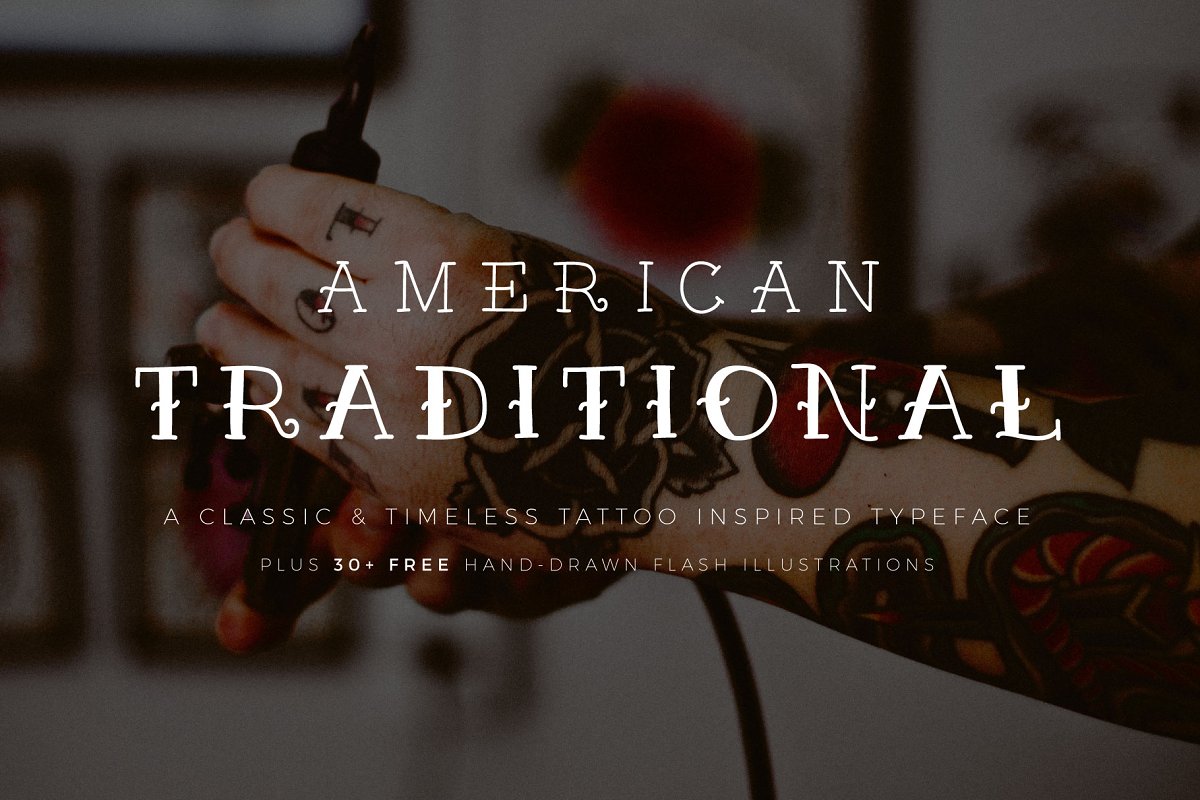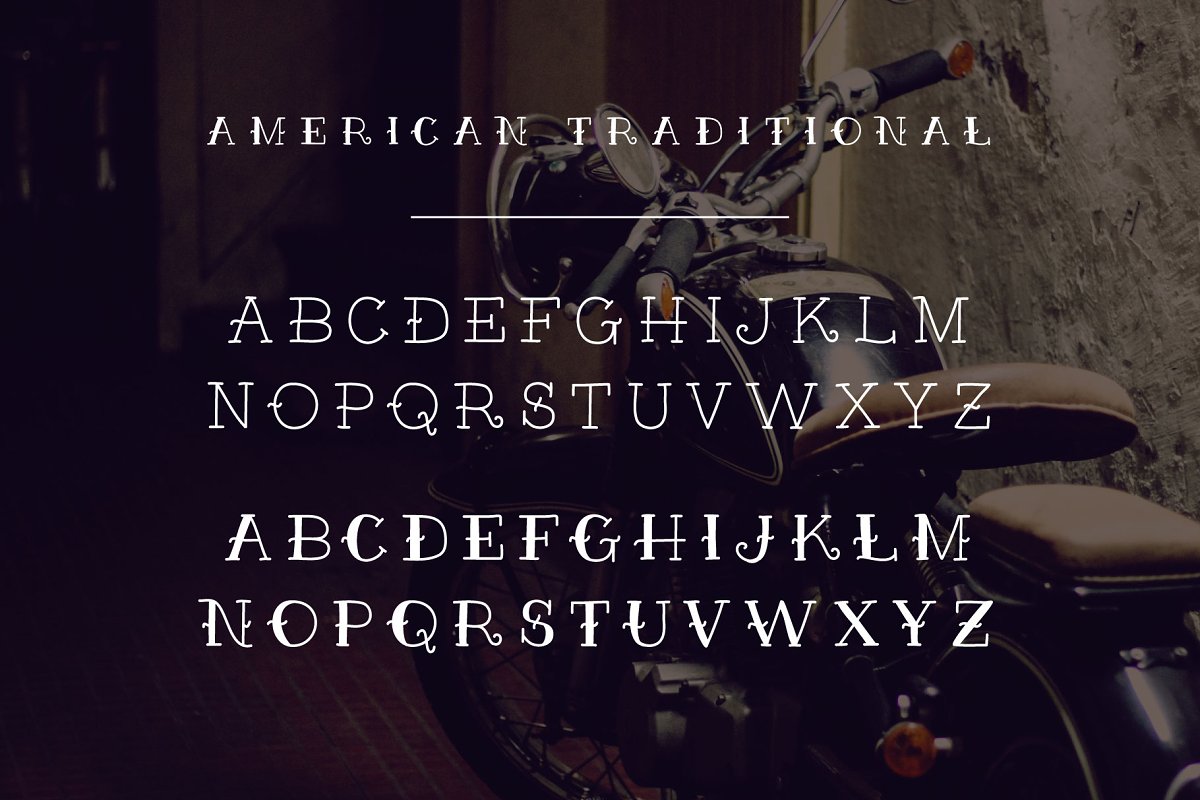
About the American Traditional Free Flash Font
American TraditionalA hand drawn font in two weights inspired by traditional tattoos of AmericaIncludes over 30 hand drawn vectors to pair with this fontFILES INCLUDED:AmericanTraditional TTFAmericanTraditional OTFVector Illustrations (, ai)Vector Illustrations (High Resolution JPG)Vector Illustrations (transparent PNG)Enjoy!